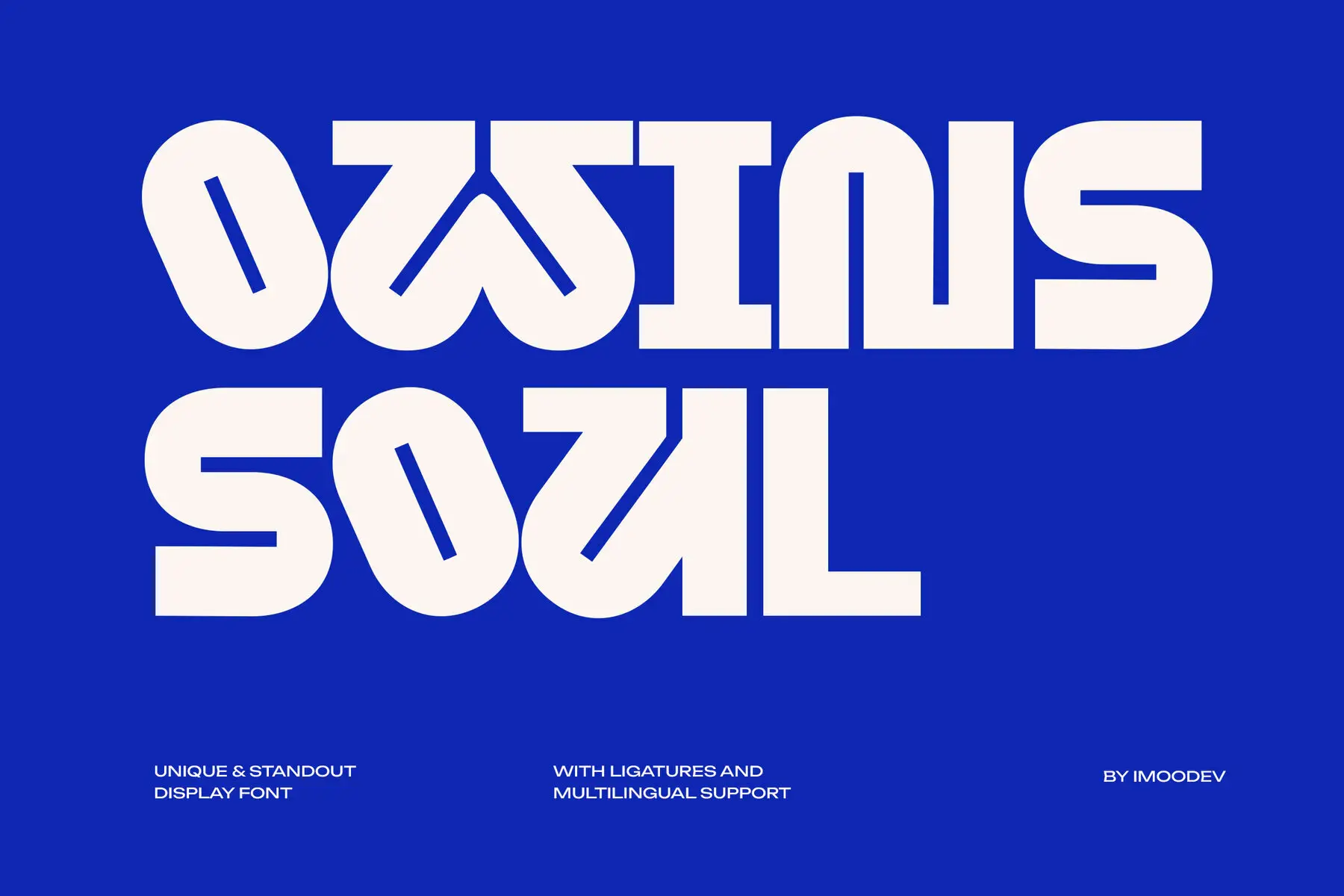
Owins Soul Font
Owins Soul Regular
Owins Soul brings forward a modern approach to display typography, offering boldness with its substantial, geometrically informed structure. Designed to attract attention, this display font projects both confidence and an unmistakable sense of play. The consistent, robust stroke weight produces a visual rhythm that feels both contemporary and approachable—an ideal pairing for projects that demand a memorable typographic element. Its chunky letterforms and dynamic design lend themselves well to a wide variety of applications. Whether implemented in branding, motion graphics, or packaging, Owins Soul ensures messages remain visually compelling and clearly articulated. Creative directors and graphic designers will find its versatility particularly useful, especially in endeavors that call for a playful yet assertive typographic presence.Owins Soul: Playful Geometric Display Typeface